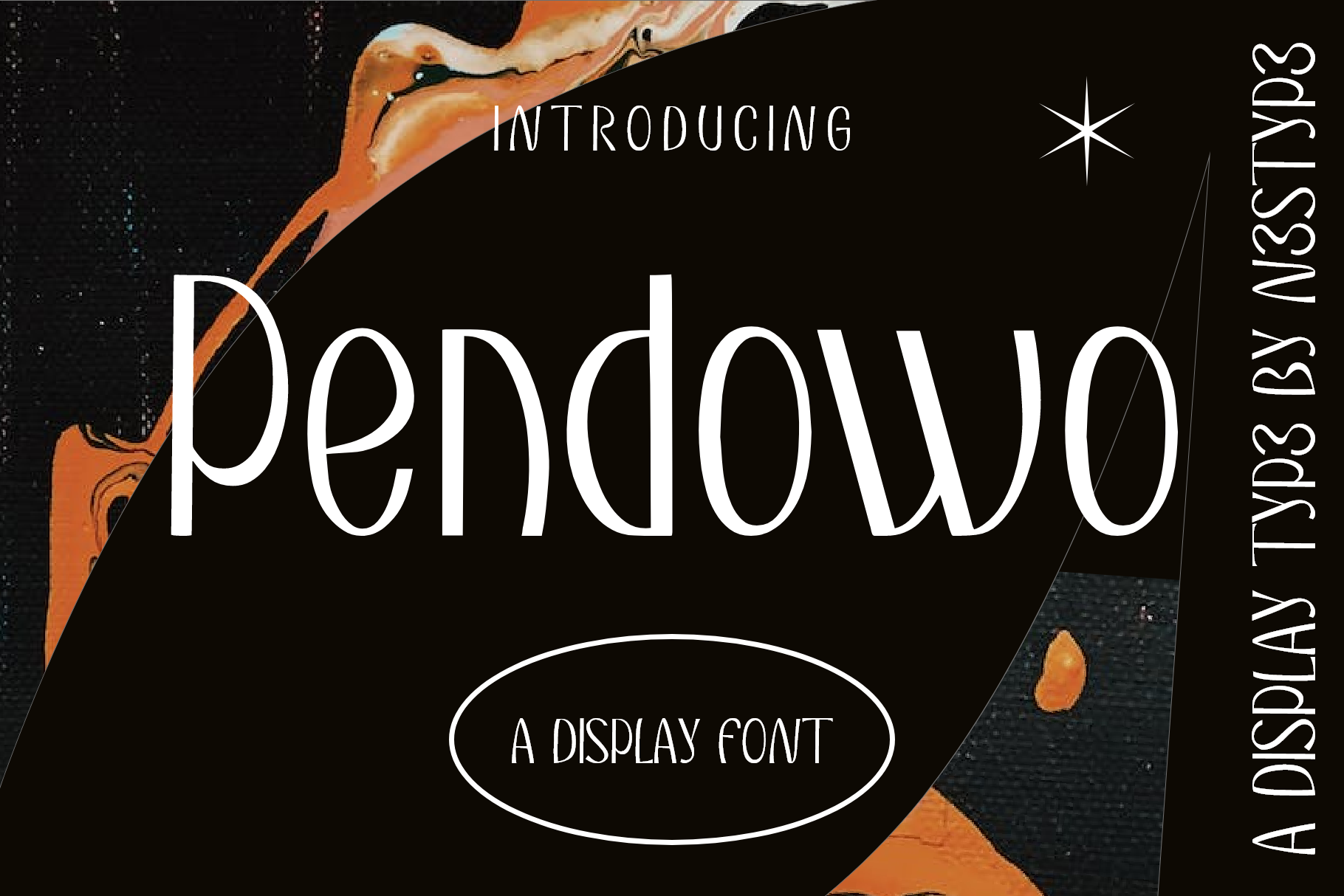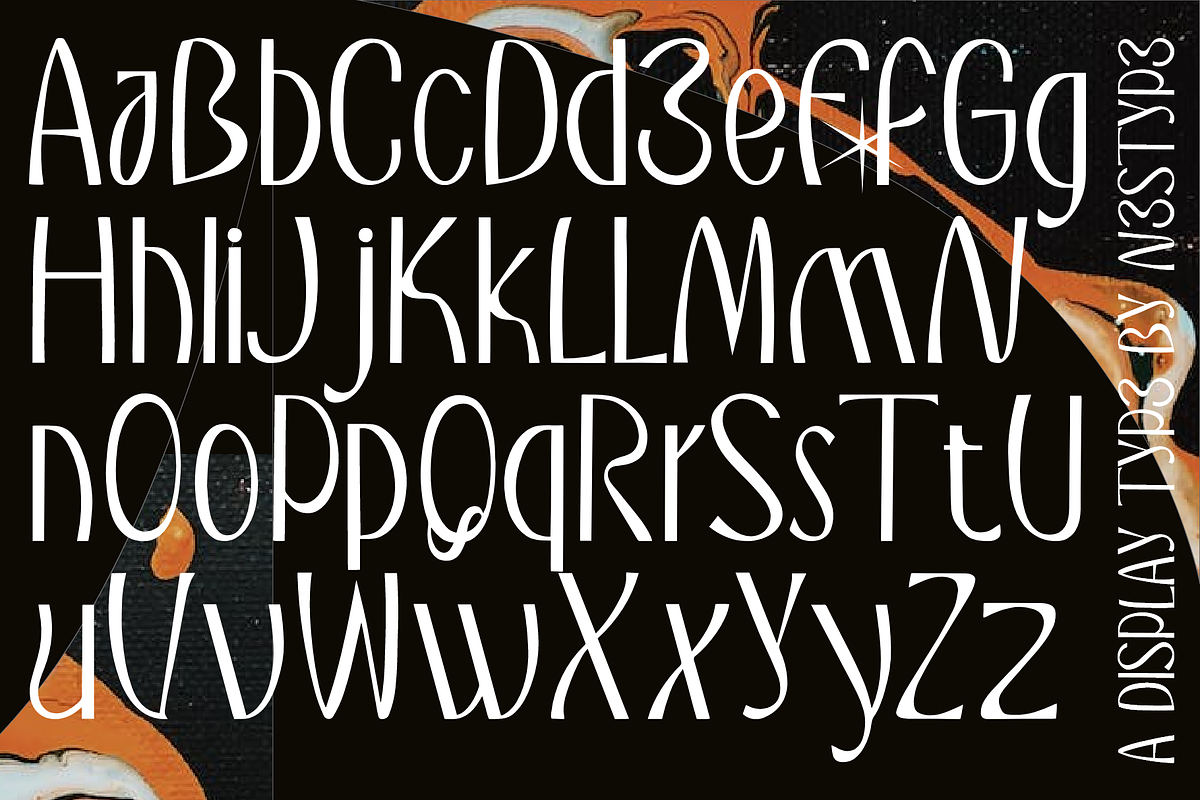
Pendowo Font
The Pendowo font has beautiful curved shapes and dances with shapes. Designed with a soft, hand-crafted touch and an even more artistic look inside, this font is perfect for use on posters, classic design projects, subtitles, websites, blogs, and product packaging.